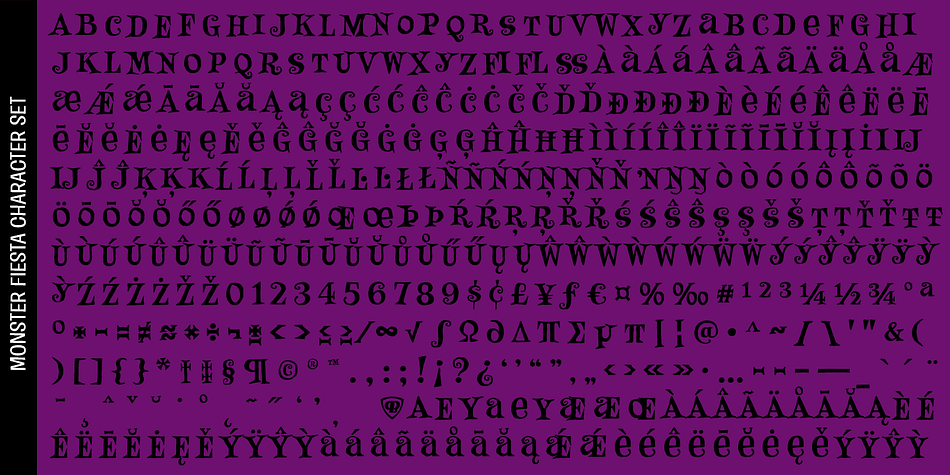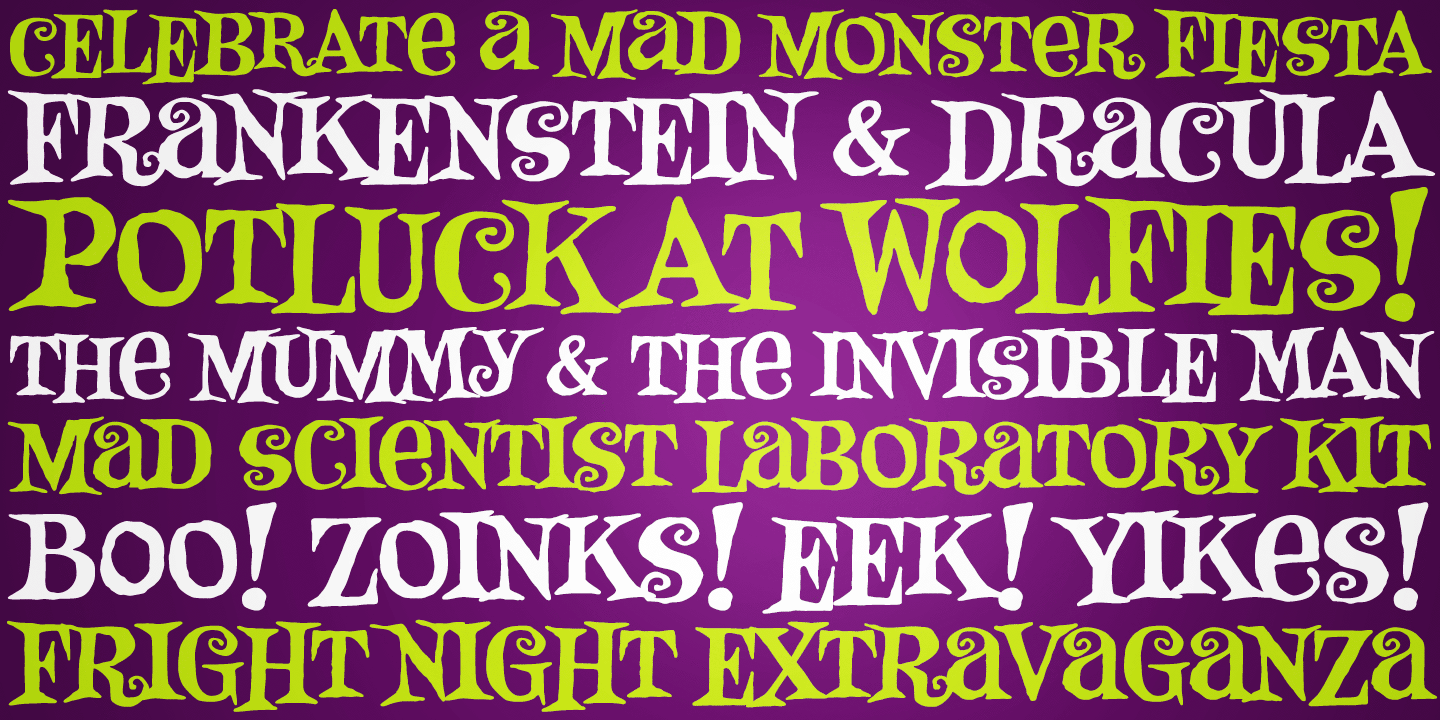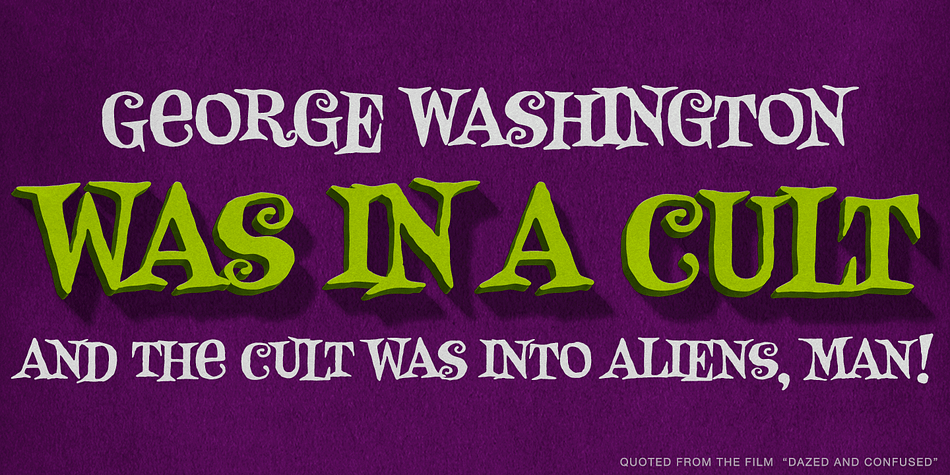
Designed by Phil Bracco, Monster Fiesta PB is a hand display font published by Pink Broccoli.
An offbeat, fun, and frightful serif typeface inspired by the 1969 Rankin Bass animagic classic titled, Mad Monster Party.